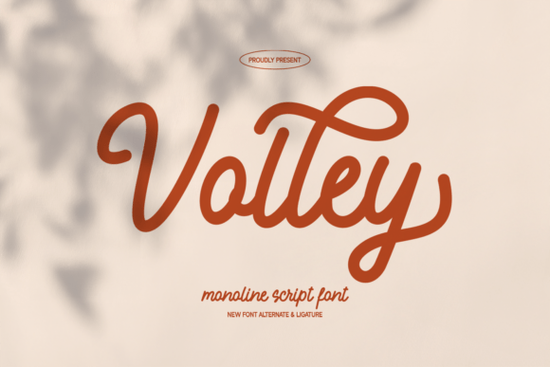
Designers, crafters, and small business owners often look for fonts that can add energy and personality to their projects. The Volley Font is one such typeface that stands out with its dynamic, hand-painted style. Whether you're working on a fitness poster or a social media header, Volley brings a sense of motion and excitement that can elevate your work without overwhelming it.
With its high-velocity aesthetic, Volley is ideal for projects that need a human touch. It works well in extreme sports branding, active lifestyle campaigns, and even casual packaging designs. Its versatility makes it a go-to choice for those looking to add a unique visual element to their creative work.
What Makes Volley Font Stand Out?
Volley Font is designed to feel fast and expressive, making it perfect for layouts that require a bold, energetic presence. Unlike more traditional fonts, Volley has a hand-painted quality that gives it a personal, authentic feel. This makes it especially useful for brands that want to convey a sense of movement and action.
One of the key strengths of Volley is its readability. Even though it has a dynamic appearance, it remains clear and easy to read at various sizes. This makes it suitable for both large-scale prints and digital displays. Whether you're creating a logo or a social media graphic, Volley can help you make a strong visual statement.
Best Uses for Volley Font
- Extreme sports apparel logos – Volley adds a sense of speed and intensity that matches the energy of extreme sports.
- Fitness motivation posters – Its energetic style helps convey determination and drive.
- Active lifestyle brand systems – Volley can be used consistently across different brand materials for a cohesive look.
- Casual snack or beverage packaging – The font’s lively nature can make products more eye-catching on shelves.
- High-visibility social media headers – Volley grabs attention and makes content stand out in busy feeds.
How to Use Volley Font Effectively
To get the most out of Volley Font, consider the following tips:
- Pair it with simple backgrounds – Since Volley has a strong visual presence, it works best when paired with clean, minimal designs.
- Use it for headlines and titles – Its energetic style is ideal for grabbing attention in headings and subheadings.
- Experiment with color – Volley looks great in bright, bold colors that match the font's dynamic feel.
- Limit the amount of text – Due to its expressive nature, Volley is best used in short phrases or single words.
By using Volley Font thoughtfully, you can create designs that feel fresh, modern, and full of life. Whether you're designing for a fitness brand, a racing team, or a casual product line, this font can help you make a lasting impression.
If you're new to using display fonts, start by testing Volley in a few different contexts. You'll quickly see how it can enhance your creative work while maintaining clarity and professionalism.
Remember, the goal is to find a font that complements your design vision while adding a unique touch. Volley Font is a great choice for anyone looking to bring energy and motion into their work.
Before finalizing your project, take a moment to review how Volley looks in different sizes and formats. This will help ensure that it meets your design goals and delivers the right impact.